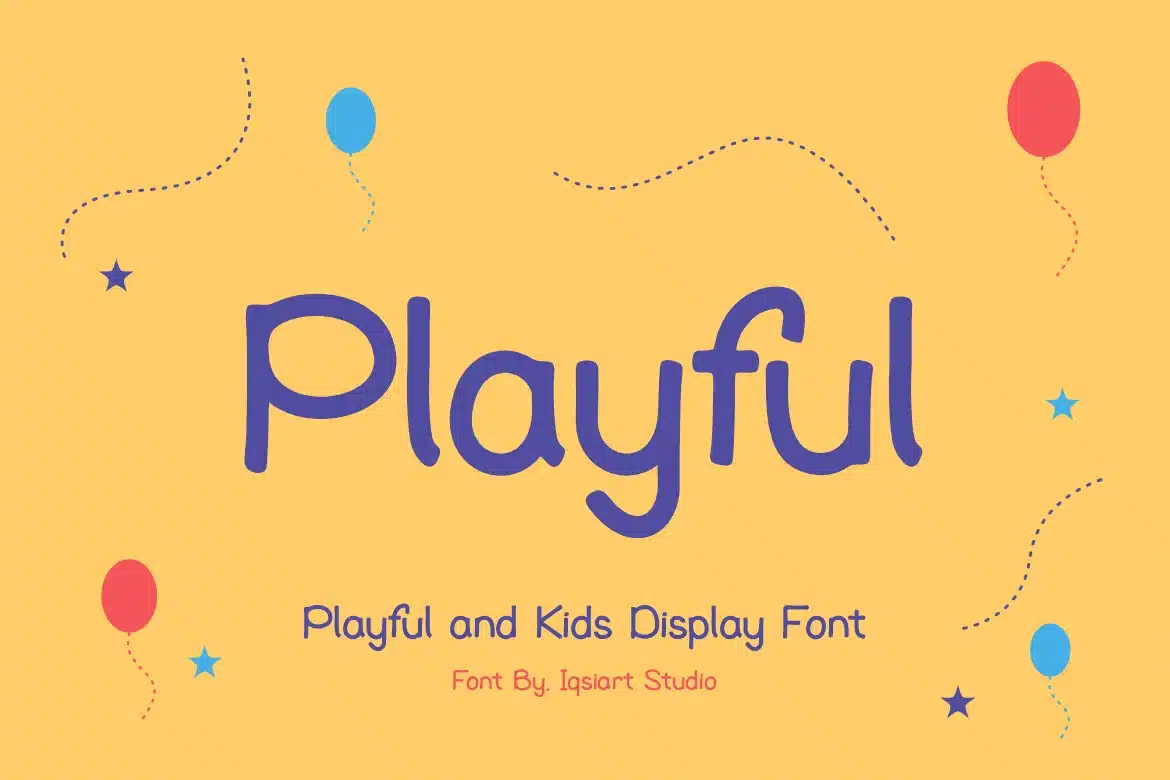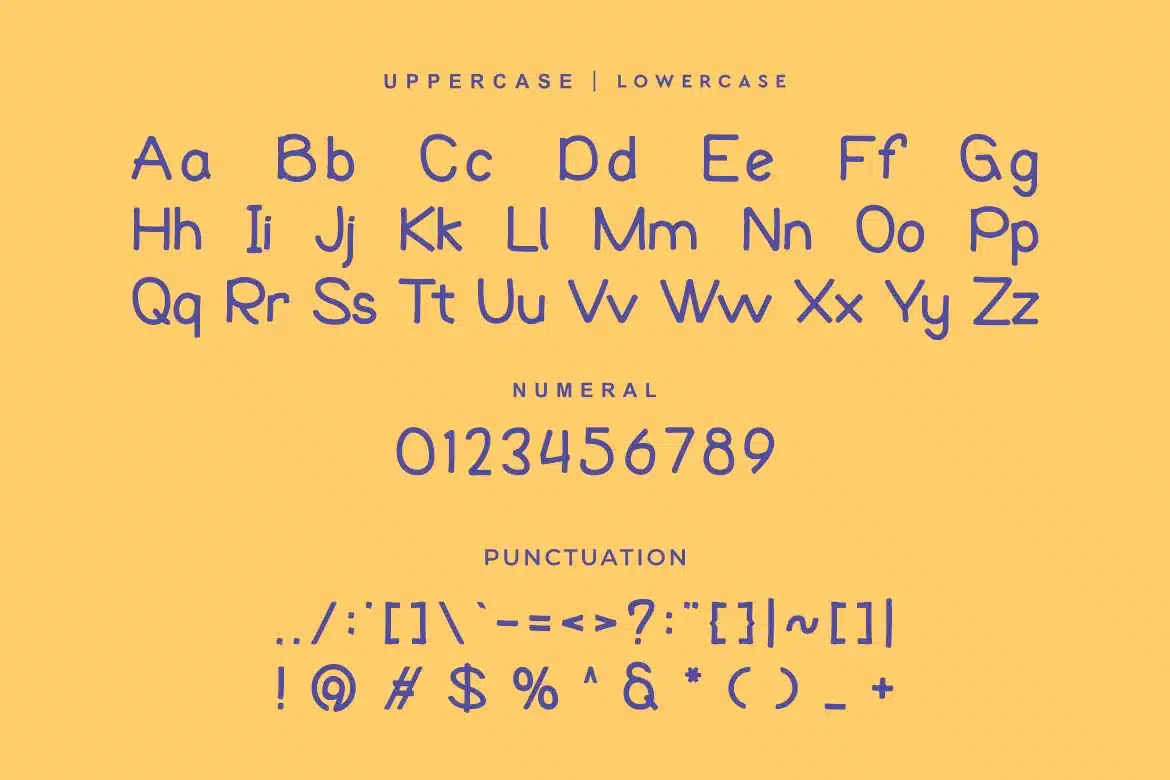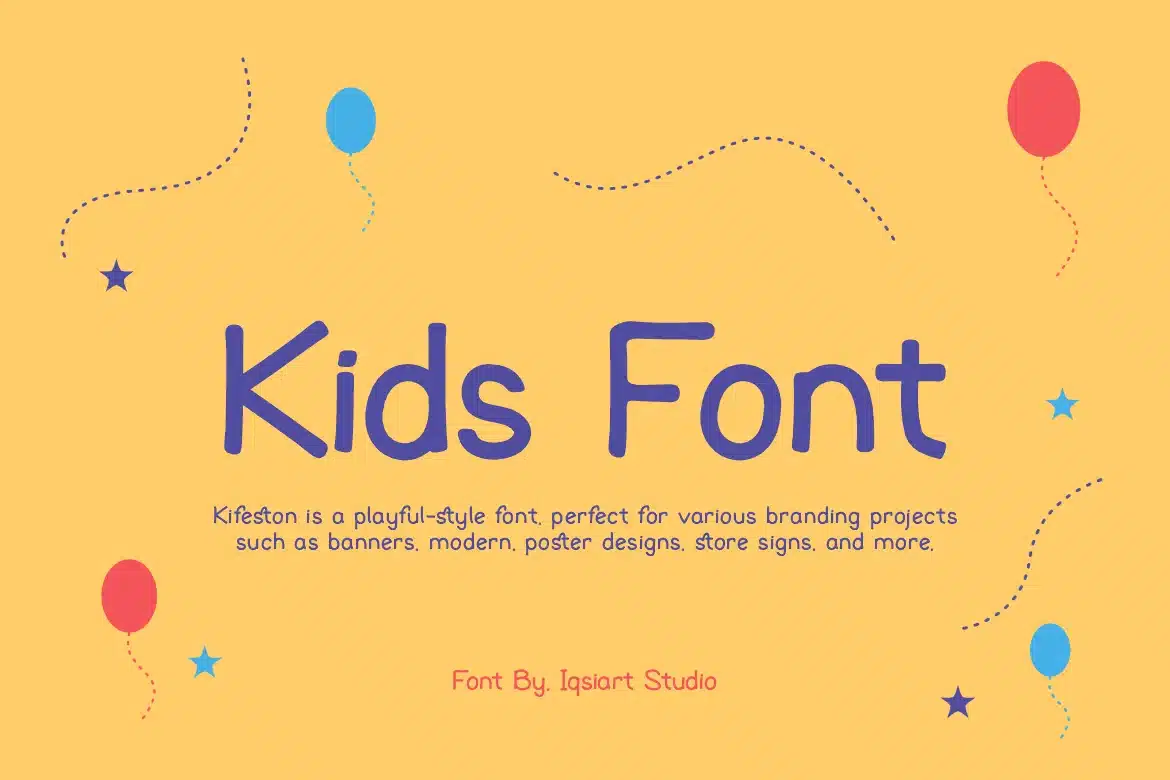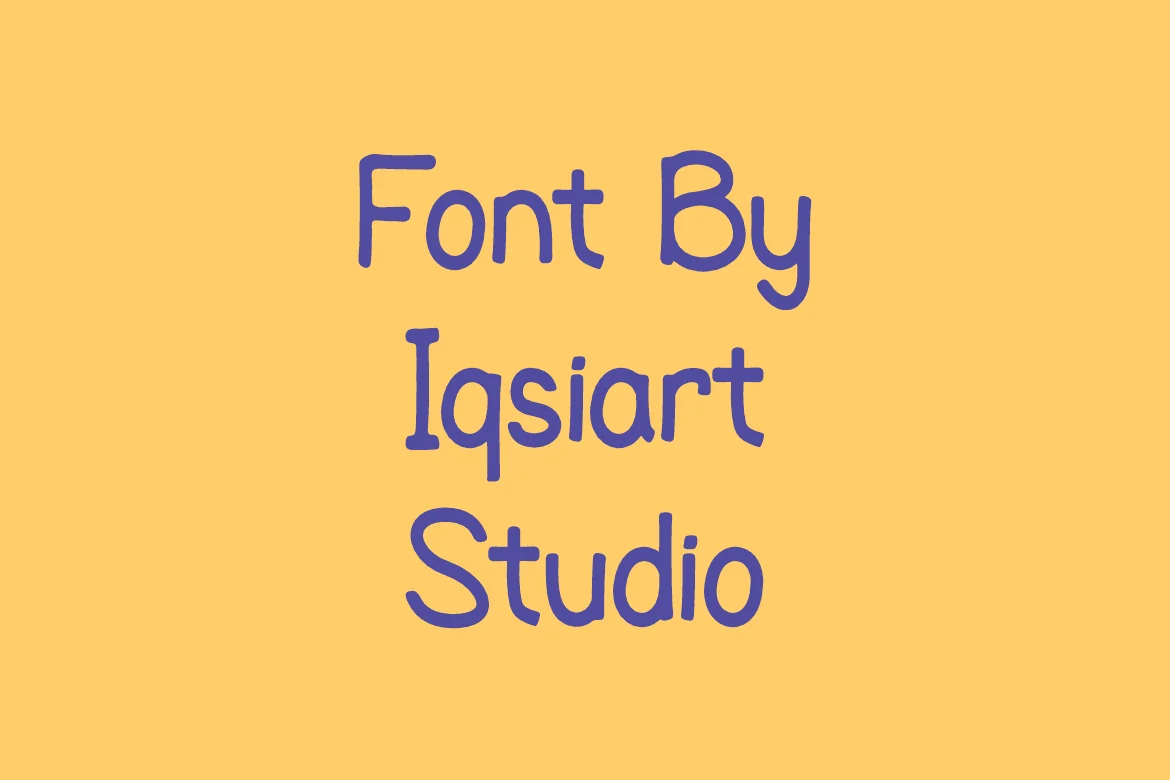
Kifeston Font is a playful and authentic display typeface that suits a variety of design needs. We offer a wide range of themes and font styles — visit our profile to explore more and find the perfect style for your project.